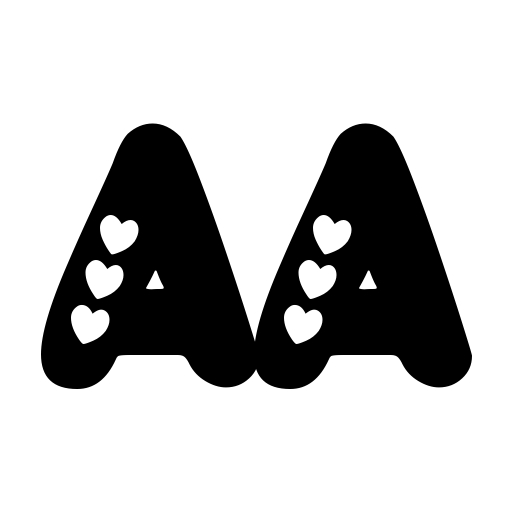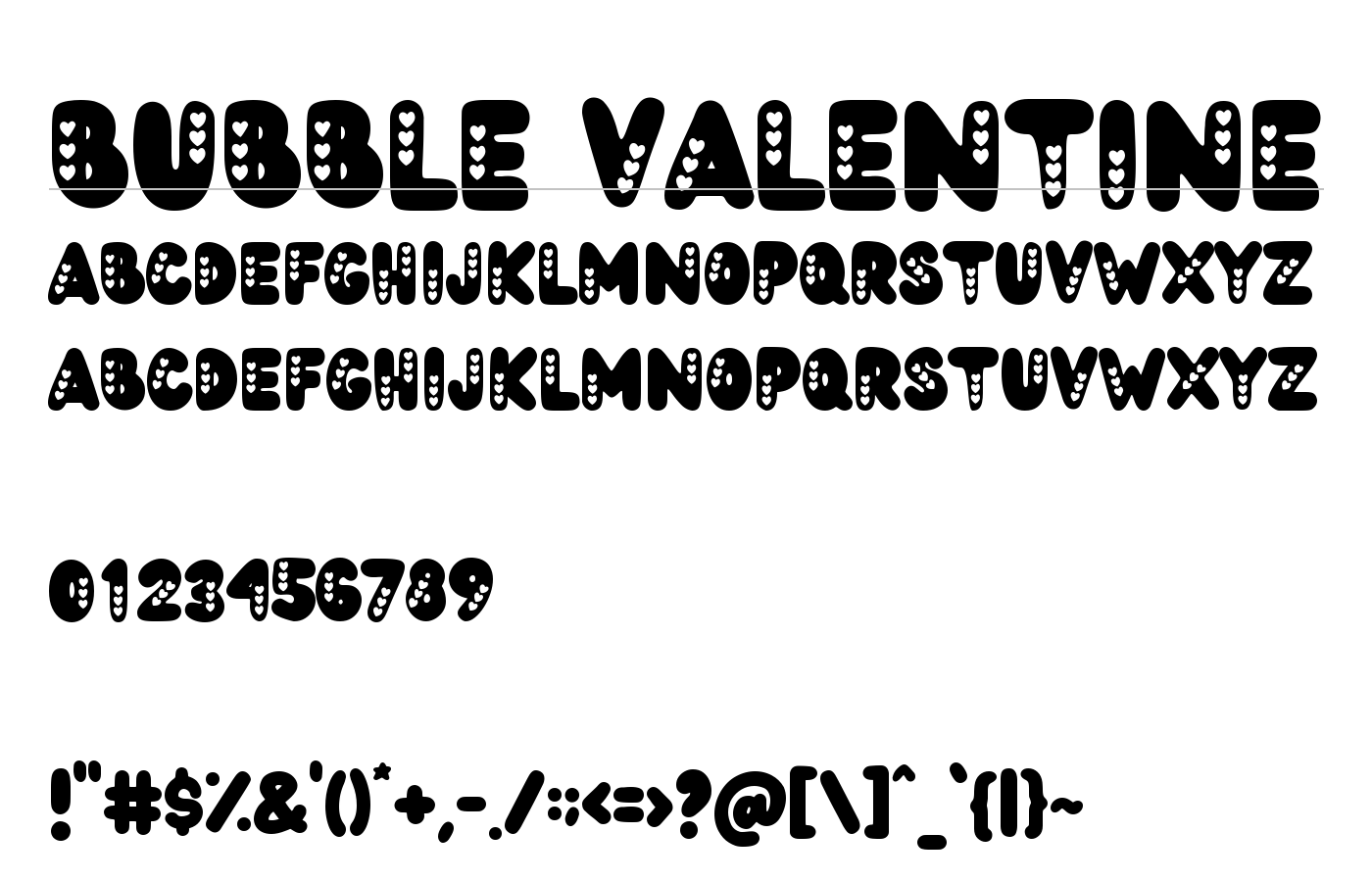
Bubble Valentine is a playful and bold sans serif font featuring thick, rounded letterforms filled with small heart shapes, giving it a bubbly, affectionate charm. Its chunky, friendly style with a heavy weight and consistent width makes it perfect for fun, youthful designs like party invitations, greeting cards, and festive branding that seeks to convey warmth and joy. This font stands out in headlines and decorative use where a lively and loving atmosphere is desired.
Bubble Valentine Font
About Bubble Valentine Font
| Font family | Bubble Valentine Font |
| Designer | Dimas Prasetyo |